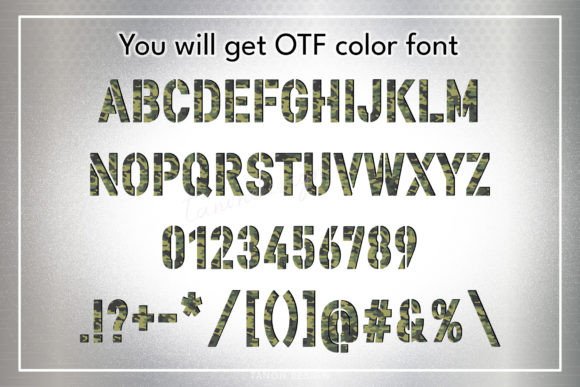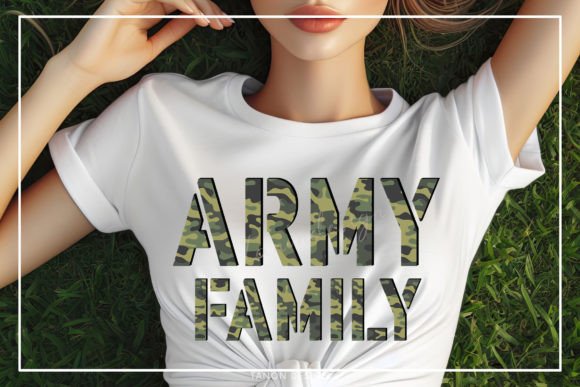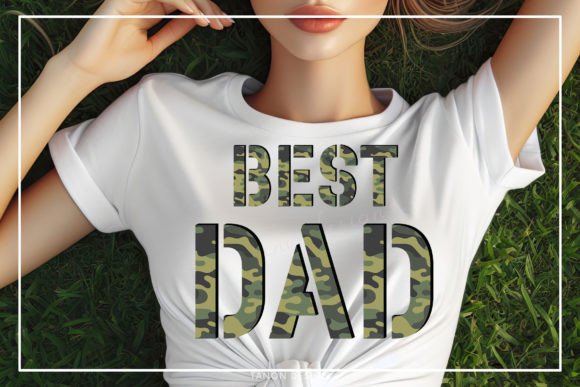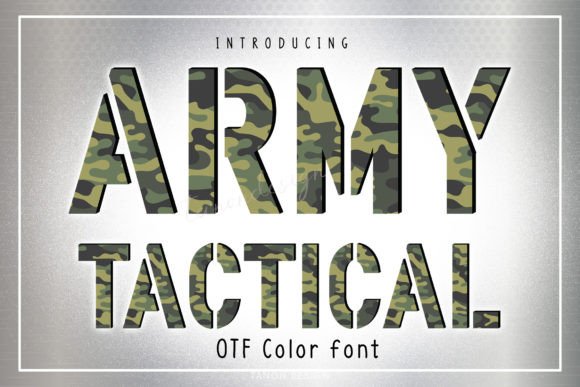
Introducing Army Tactical Font: The Ultimate Camouflage Design Companion
Are you a designer or crafter looking for a unique and versatile font to elevate your project designs? Look no further than the Army Tactical Font, a stunning army camouflage color font that is sure to make your creations stand out. In this article, we’ll explore the features and benefits of this amazing font, and how it can be used to take your designs to the next level.
What is Army Tactical Font?
Army Tactical Font is a specially designed font that features a bold, rugged, and camouflage-inspired aesthetic. With its unique blend of military-style typography and outdoor-inspired colors, this font is perfect for designers and crafters who want to add a touch of edginess and adventure to their projects.
Key Features of Army Tactical Font
- Camouflage Colors: The Army Tactical Font features a range of camouflage-inspired colors, including shades of green, brown, and tan, that will add a unique and eye-catching element to your designs.
- Bold and Rugged: The font’s bold and rugged design makes it perfect for creating striking and attention-grabbing designs that will stand out on any project.
- Versatile: The Army Tactical Font is incredibly versatile, and can be used on a wide range of projects, from t-shirt designs and mug designs to digital designs, crafts, cards, and more.
Project Ideas Using Army Tactical Font
The Army Tactical Font is incredibly versatile, and can be used on a wide range of projects, including:
- T-Shirt Designs: Create bold and eye-catching t-shirt designs that will stand out on any casual wear.
- Mug Designs: Add a touch of personality to your mug designs with the Army Tactical Font’s unique camouflage colors.
- Digital Designs: Use the font to create stunning digital designs, such as social media graphics and blog headers.
- Crafts: Add a personal touch to your crafts, such as handmade cards and gift tags, with the Army Tactical Font.
- Cards: Create unique and personalized cards for special occasions, such as birthdays and holidays.
Benefits of Using Army Tactical Font
The Army Tactical Font offers a range of benefits for designers and crafters, including:
- Unique and Eye-Catching: The font’s camouflage colors and bold design make it a unique and eye-catching addition to any project.
- Versatile: The font can be used on a wide range of projects, making it a valuable addition to any design library.
- High-Quality: The font is high-quality and professionally designed, ensuring that your projects will look professional and polished.
In conclusion, the Army Tactical Font is a versatile and unique font that is perfect for designers and crafters looking to add a touch of edginess and adventure to their projects. With its camouflage colors, bold design, and ease of use, this font is sure to become a valuable addition to any design library. So why wait? Download the Army Tactical Font today and start creating stunning designs that will stand out from the crowd!